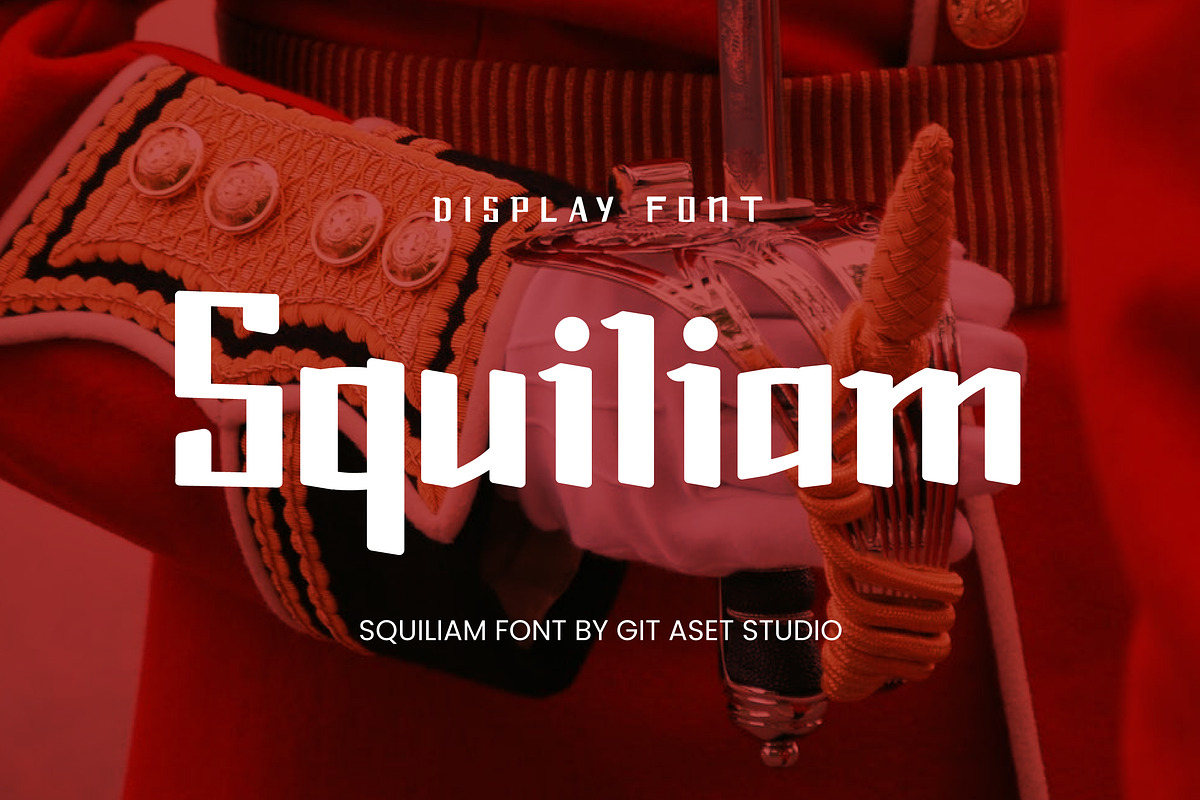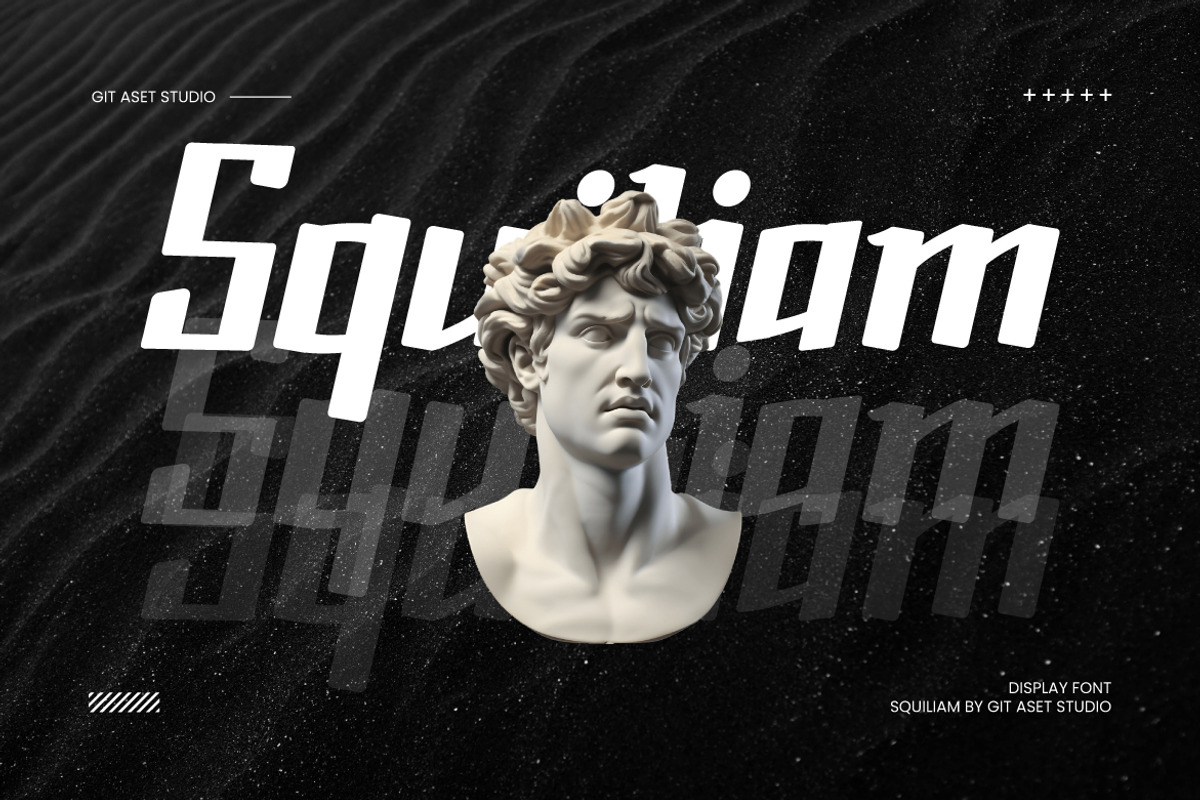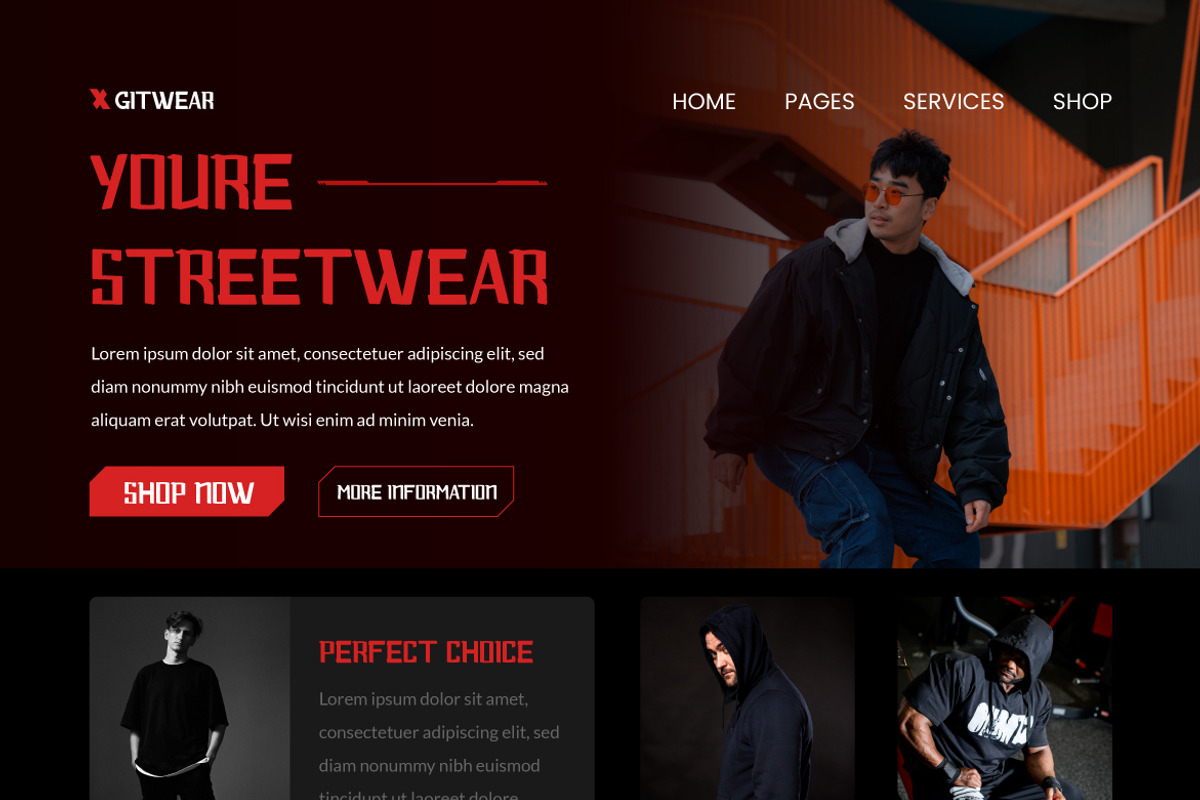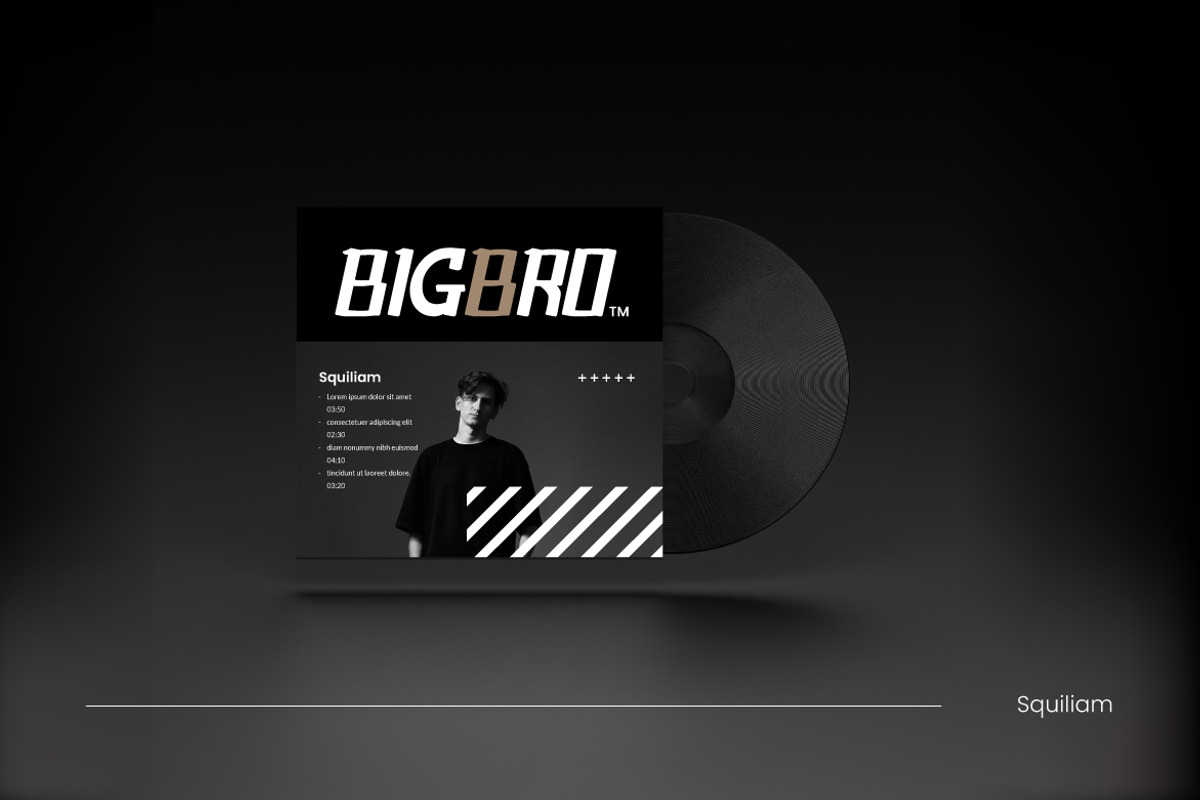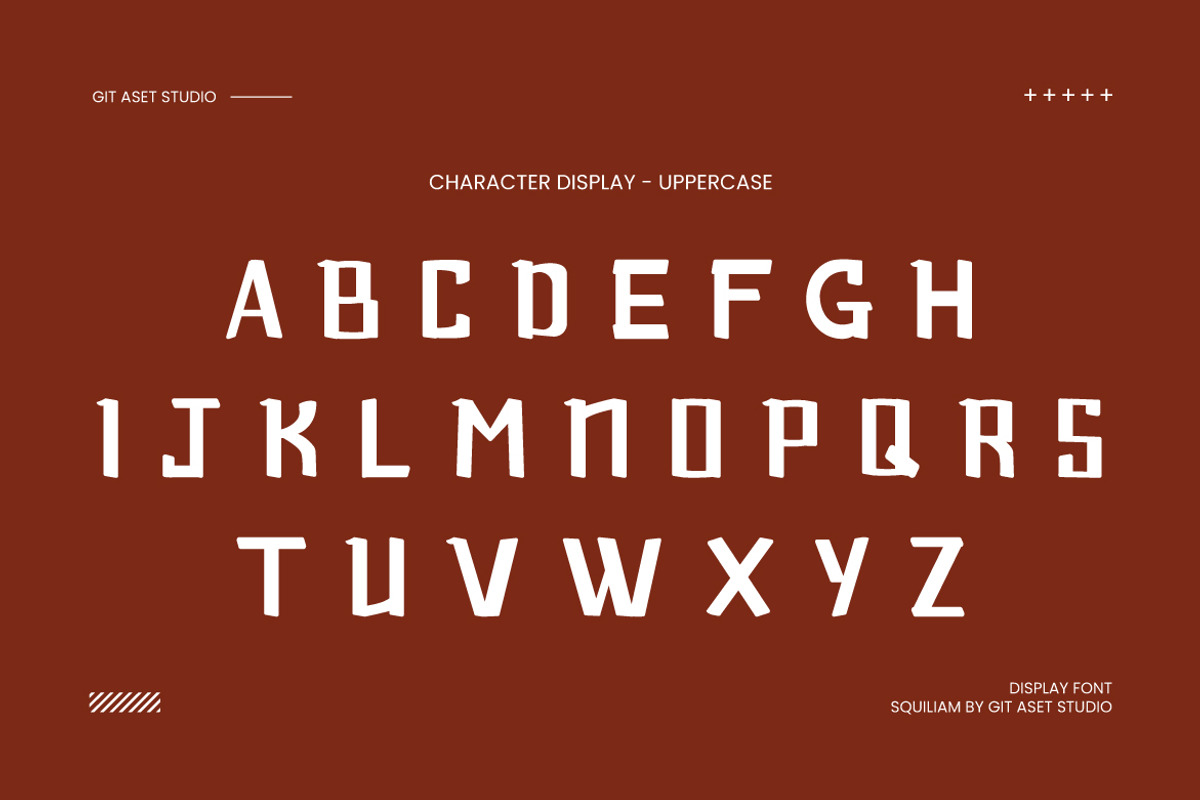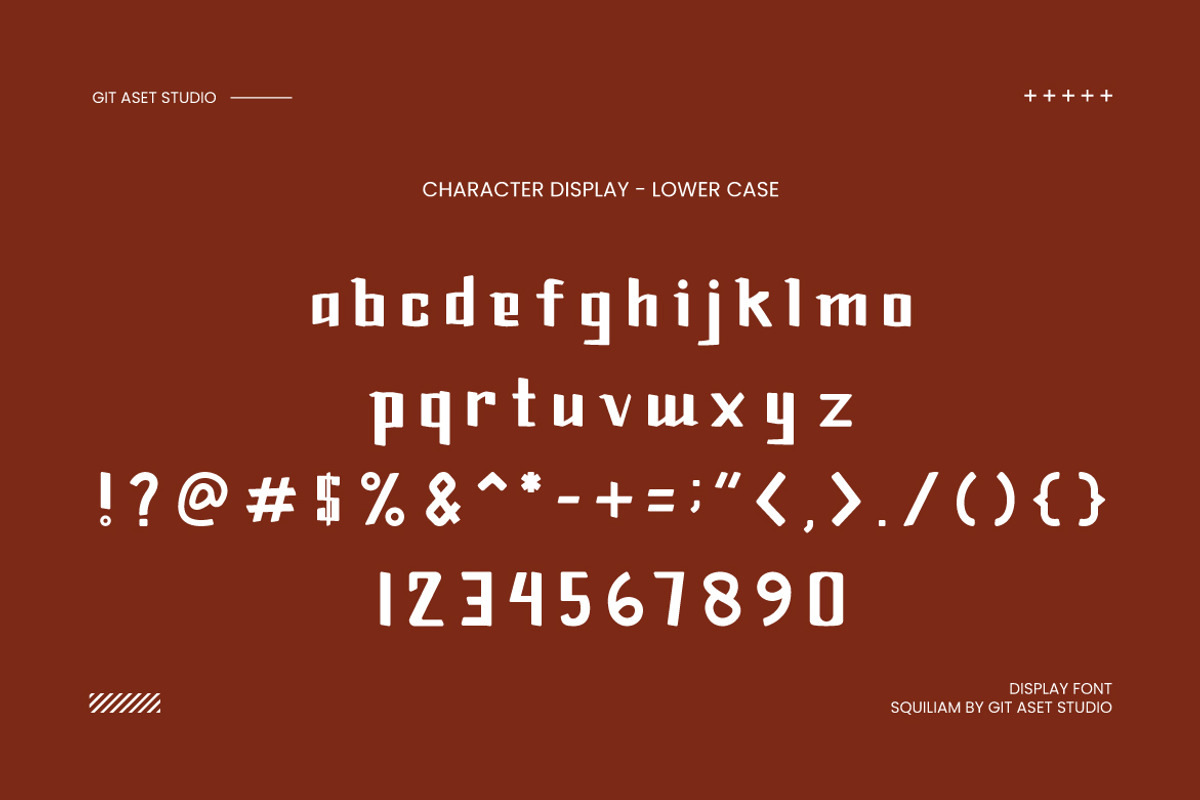
Squiliam Display Font
This font is a stunning addition to any design project, perfect for making a bold statement or capturing attention. With its clean lines and captivating style, it is sure to leave a lasting impression on your audience.
The display font is a must-have asset for designers and marketers looking to elevate their designs with a touch of elegance and uniqueness. It is ideal for advertising agencies, branding specialists, web designers, and anyone seeking to create visually stunning and impactful designs.
With its sharp edges and distinct curves, this display font adds a touch of sophistication and professionalism to any design. Its bold appearance is perfect for luxury brands, fashion campaigns, modern websites, and magazine layouts where making a strong visual statement is essential.